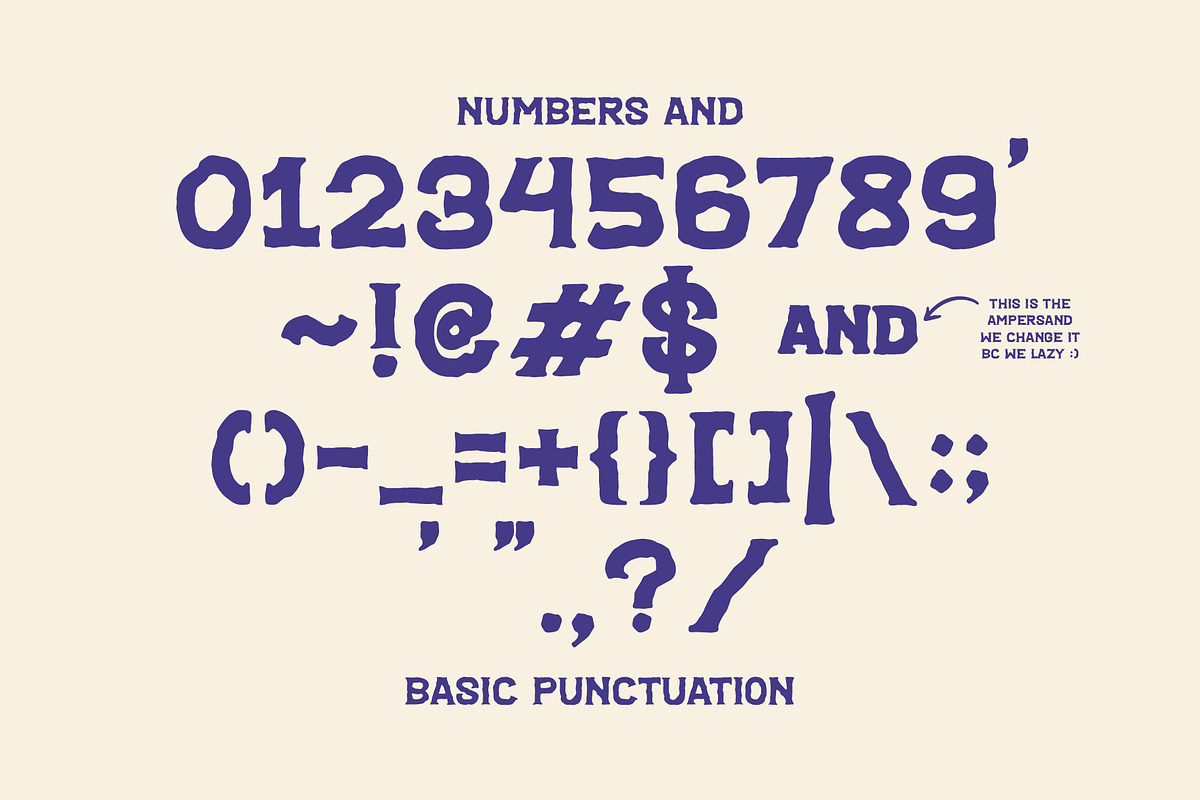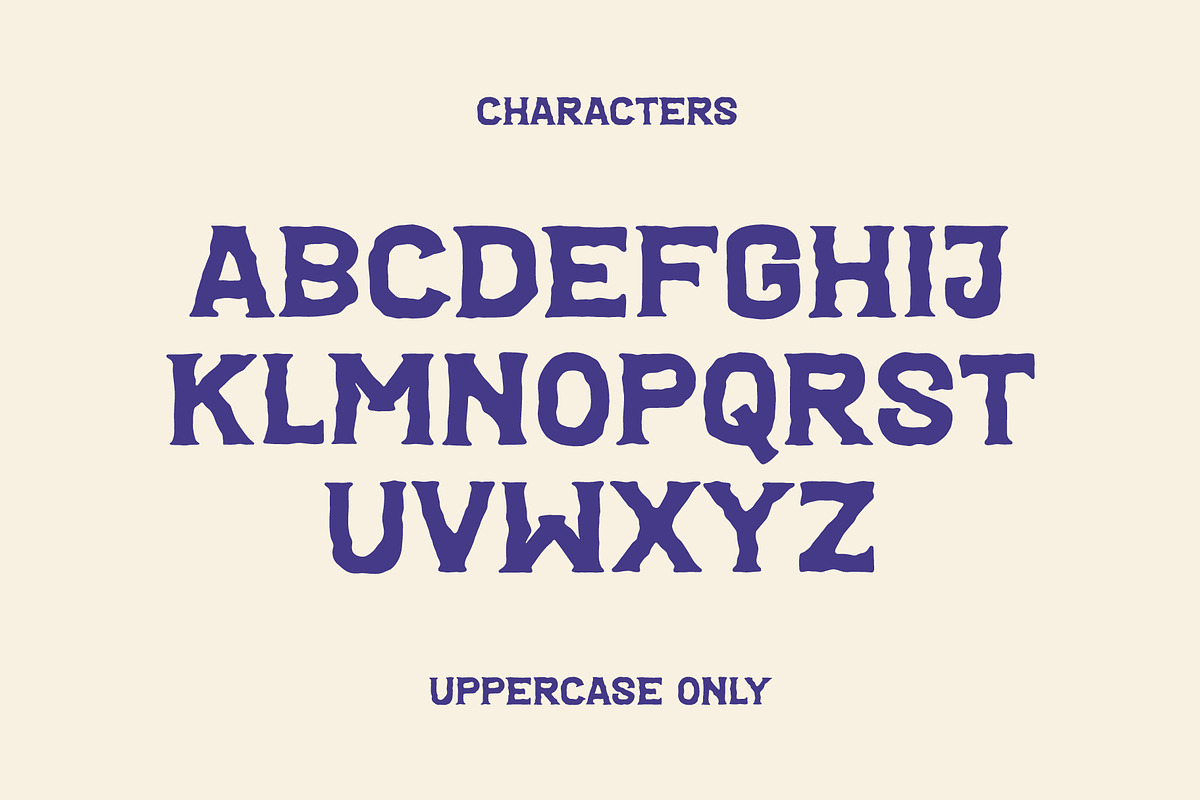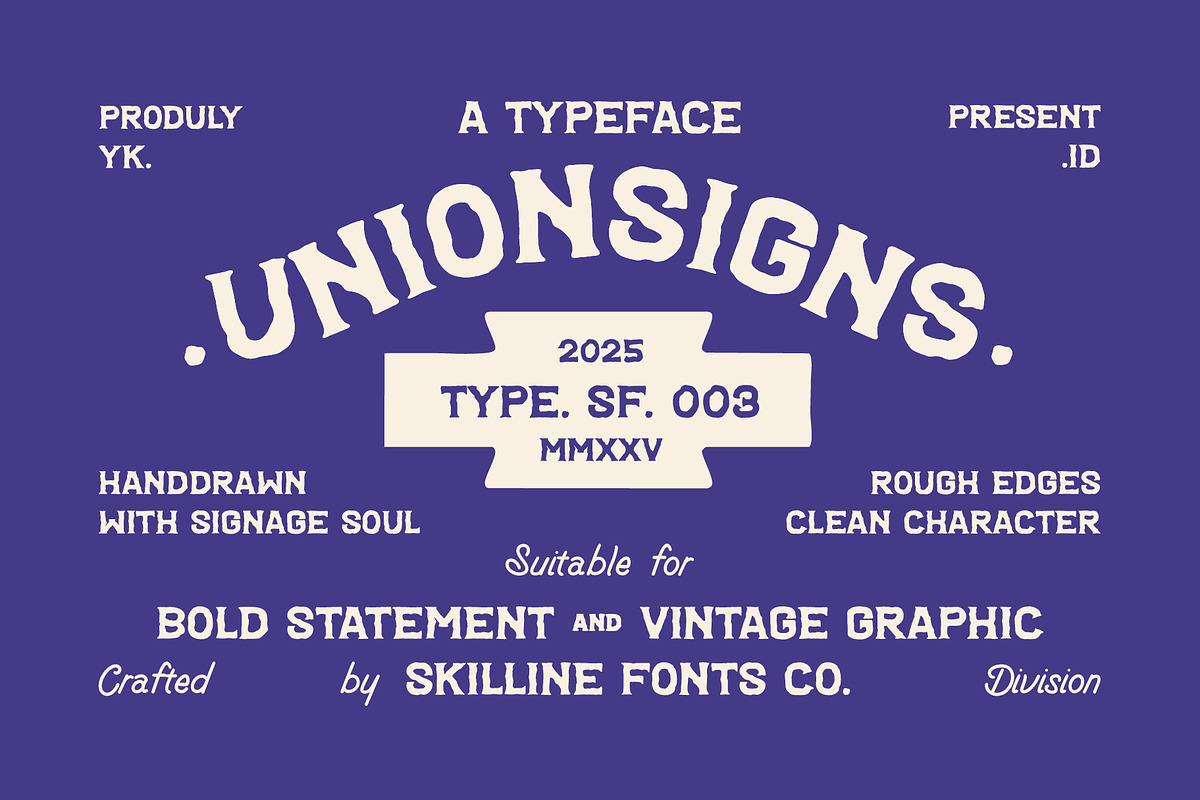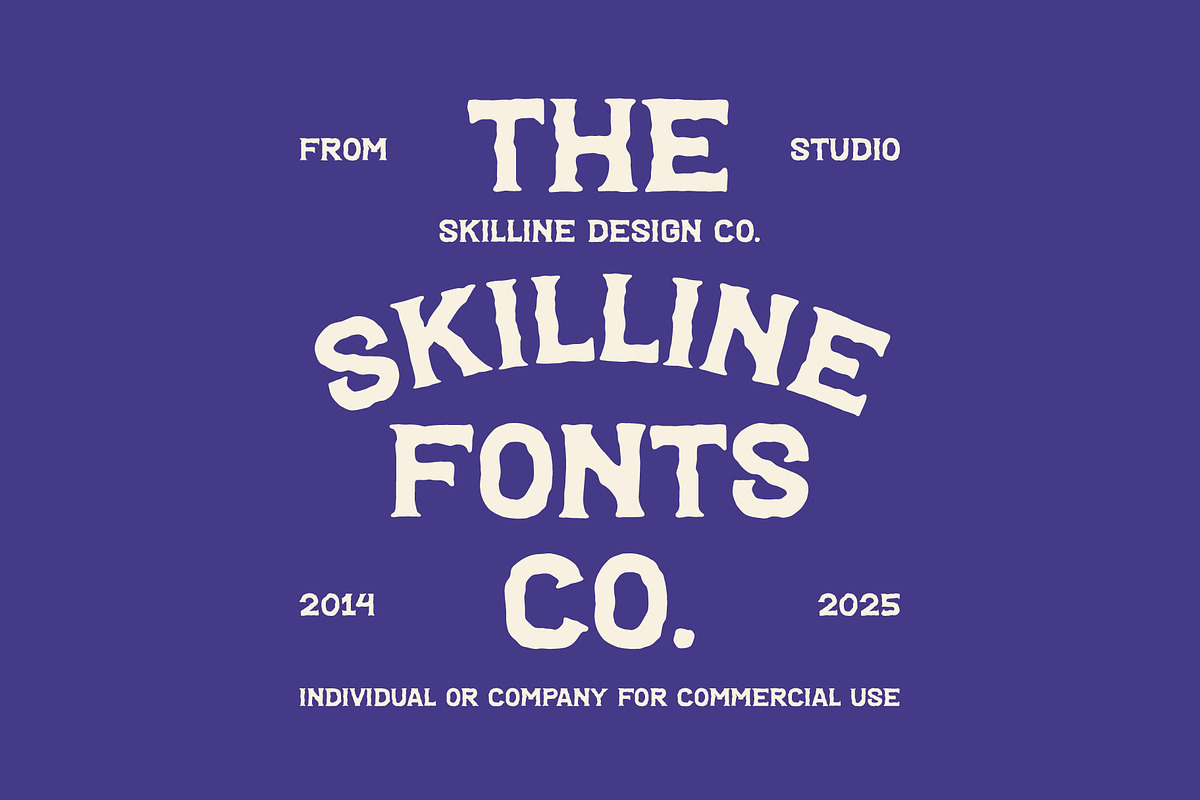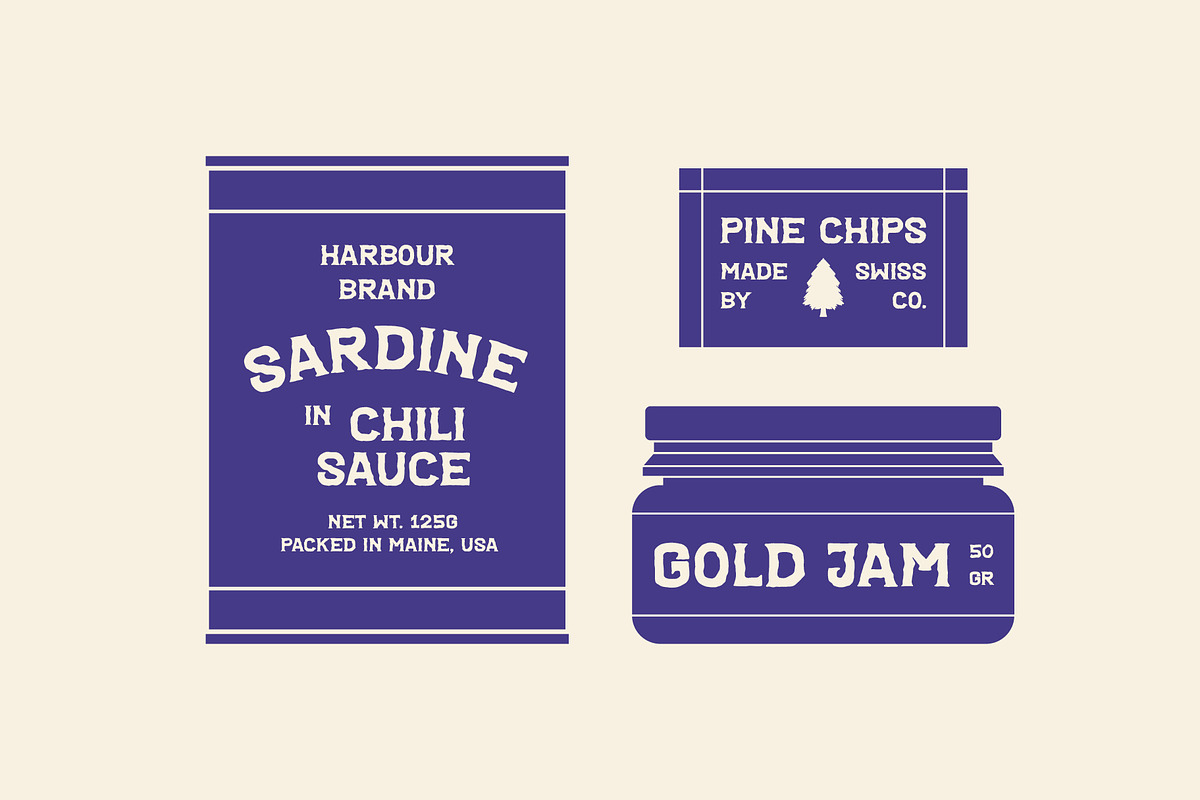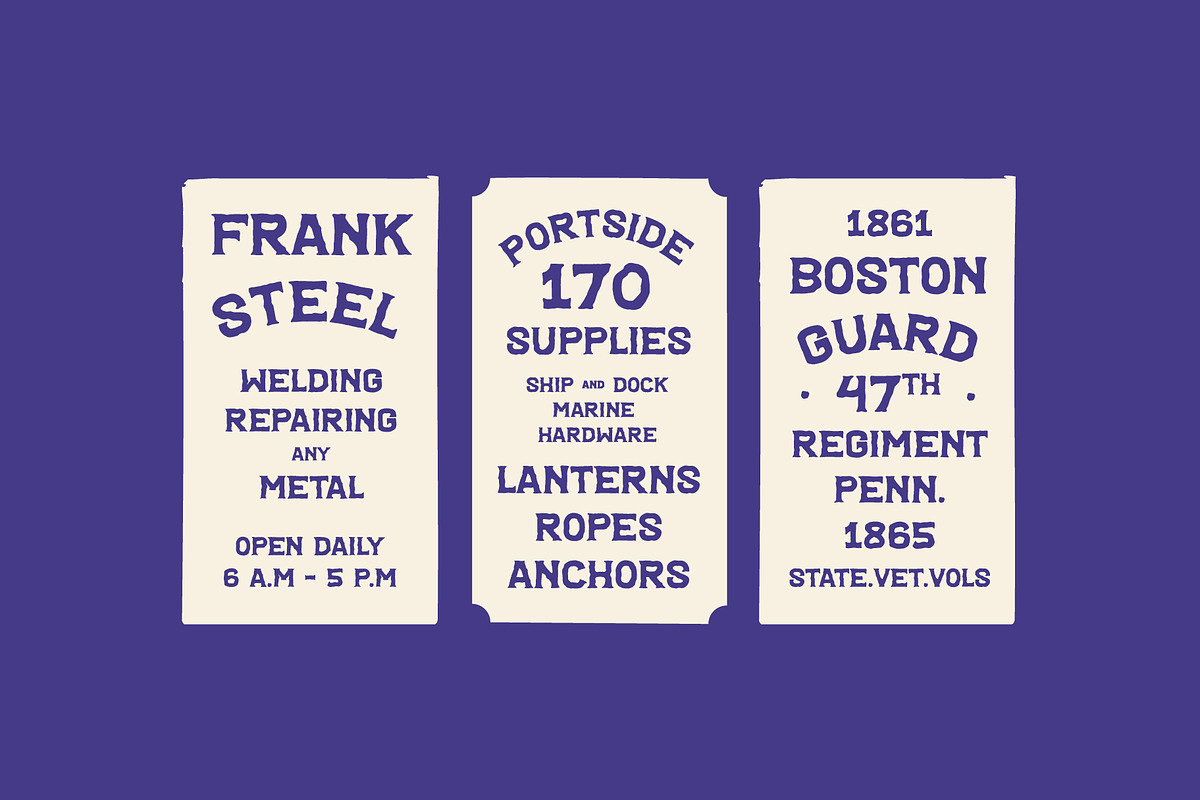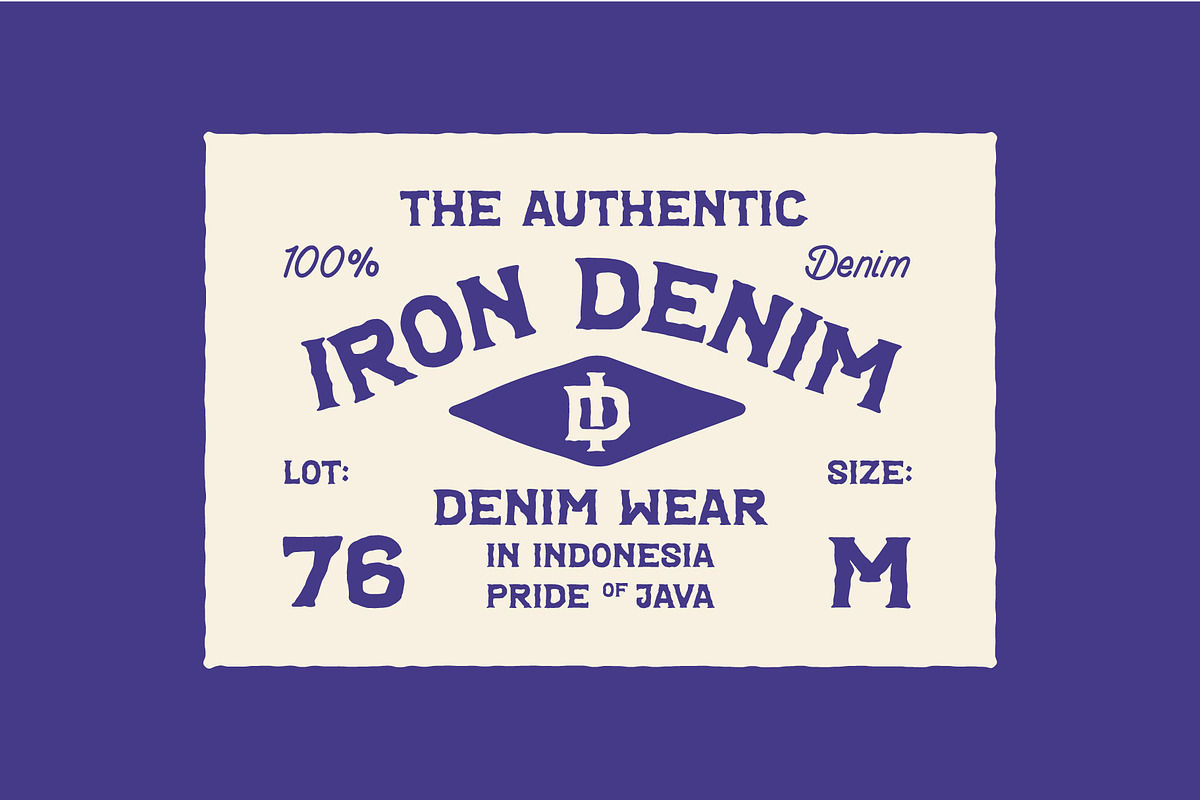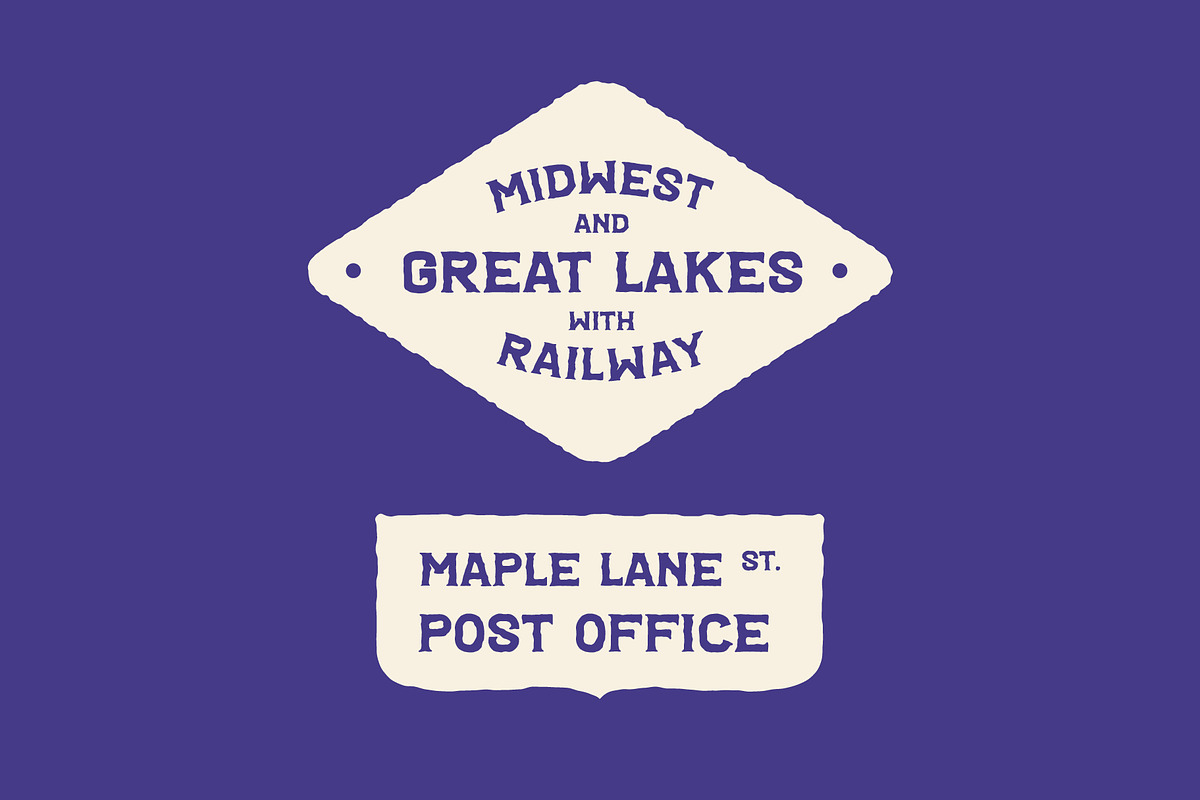
SFC Unionsigns
UnionSigns is a hand-drawn display font inspired by classic vintage signage, crafted with bold strokes, rugged edges, and a timeless handmade feel. Designed for modern branding with a retro twist, it strikes the perfect balance between authentic grit and strong readability. Whether you’re building bold packaging, designing logos, or creating striking posters, UnionSigns brings instant character to your work.
Its all-caps design with handcrafted imperfections gives it a distinctive artisanal quality, making it perfect for logos, labels, posters, badges, and merchandise. The slightly irregular strokes ensure no two designs feel the same, giving every project a unique personality.
UnionSigns Typeface Designed For
UnionSigns is made for designers who want to create bold, memorable branding with a touch of vintage soul. It’s especially powerful across social media graphics where bold typography makes an impact, while also excelling in editorial layouts, zines, and poster design. Its handcrafted edge makes it a natural choice for packaging and product design, especially for artisanal foods, handmade crafts, organic products, and heritage-inspired branding. Beyond print and packaging, UnionSigns also shines on merchandise and apparel, giving shirts, hats, and custom products a rugged, authentic look.